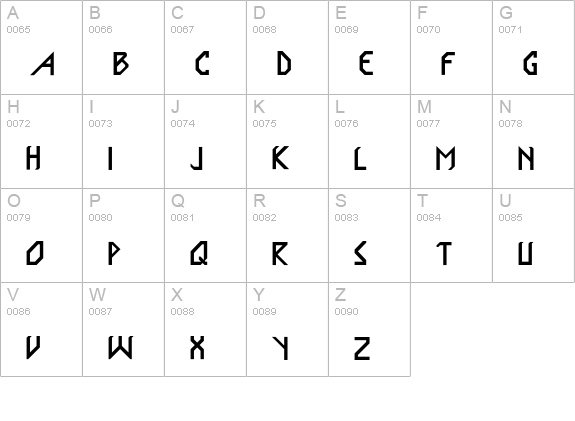
HypoLuxa font is a modern and stylish typeface that exudes elegance and sophistication. With its clean lines and sleek design, HypoLuxa is perfect for a wide range of design projects, from branding to web design. This versatile font is sure to make your text stand out and leave a lasting impression on your audience. What sets HypoLuxa apart is not only its striking aesthetics but also its accessibility. This high-quality font is available for free download at FontsMarket.com, making it easy for designers and creatives to access and use in their projects without any cost. Whether you're looking to elevate your branding, create stunning graphics, or enhance your website design, HypoLuxa font is a fantastic choice that won't break the bank. Download HypoLuxa font today from FontsMarket.com and add a touch of sophistication to your designs with this free and stylish typeface.